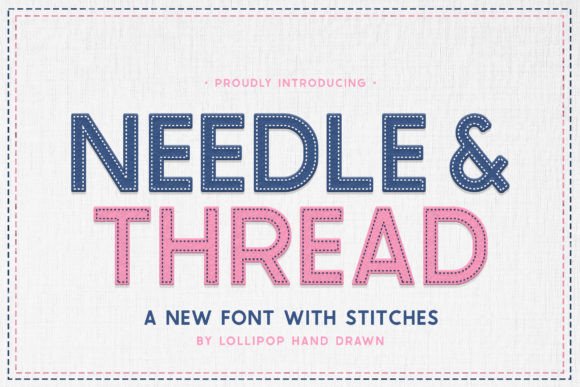
Introducing Needle and Thread Font, a captivating display font designed by Lollipop Hand Drawn. If you're on the hunt for a font that effortlessly blends solemnity with playfulness, look no further! Needle and Thread Font is here to add a touch of modernity to your designs.
Are you tired of the same old boring fonts that lack personality? Needle and Thread Font is the answer to your prayers! Its uniqueness will instantly elevate your projects, making them stand out from the crowd. With its vintage vibes and creative flair, this font is a true gem for designers and creatives alike.
With Needle and Thread Font, legibility is never compromised. Whether you're working on covers, magazines, posters, or banners, this font ensures that your message is conveyed with absolute clarity. Say goodbye to squinting eyes and confusion – Needle and Thread Font guarantees superb legibility in every use.
But what truly sets Needle and Thread Font apart is its ability to evoke emotions. This font has a way of sparking joy and curiosity, captivating your audience from the very first glance. It effortlessly infuses your designs with a sense of adventure and whimsy, making them impossible to resist.
Imagine the impact of Needle and Thread Font on your e-commerce website. With its eye-catching appeal, it will entice users to explore and engage with your products. By using this font, you create an immersive experience that leaves a lasting impression on your visitors, increasing the likelihood of conversions and sales.
Don't settle for mediocrity when you can have excellence. Needle and Thread Font is the missing puzzle piece that will tie your designs together. Its versatility allows it to adapt to various themes and aesthetics, ensuring a seamless integration into your creative endeavors.
So why wait? Take your designs to the next level with Needle and Thread Font. Let your imagination run wild as you embark on a journey of endless possibilities. Whether you're a seasoned designer or just starting out, this font is a must-have in your toolkit.